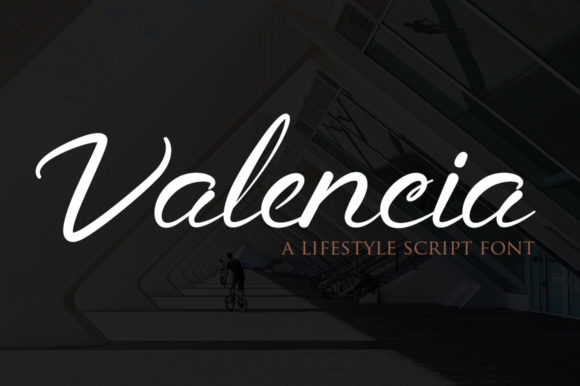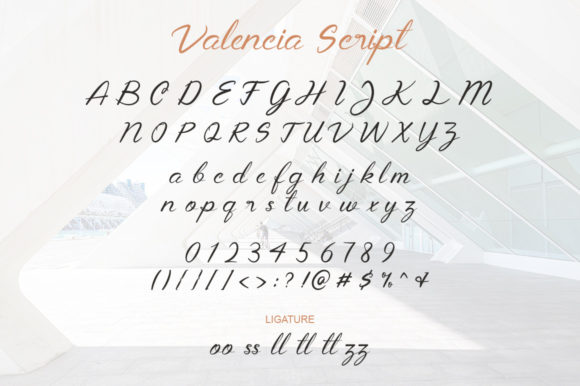
About Valencia Font
Valencia is a delicate and elegant handwritten font. Its distinct and well balanced letters make this font a masterpiece. Fall in love with its incredibly versatile style and use it to create spectacular designs!